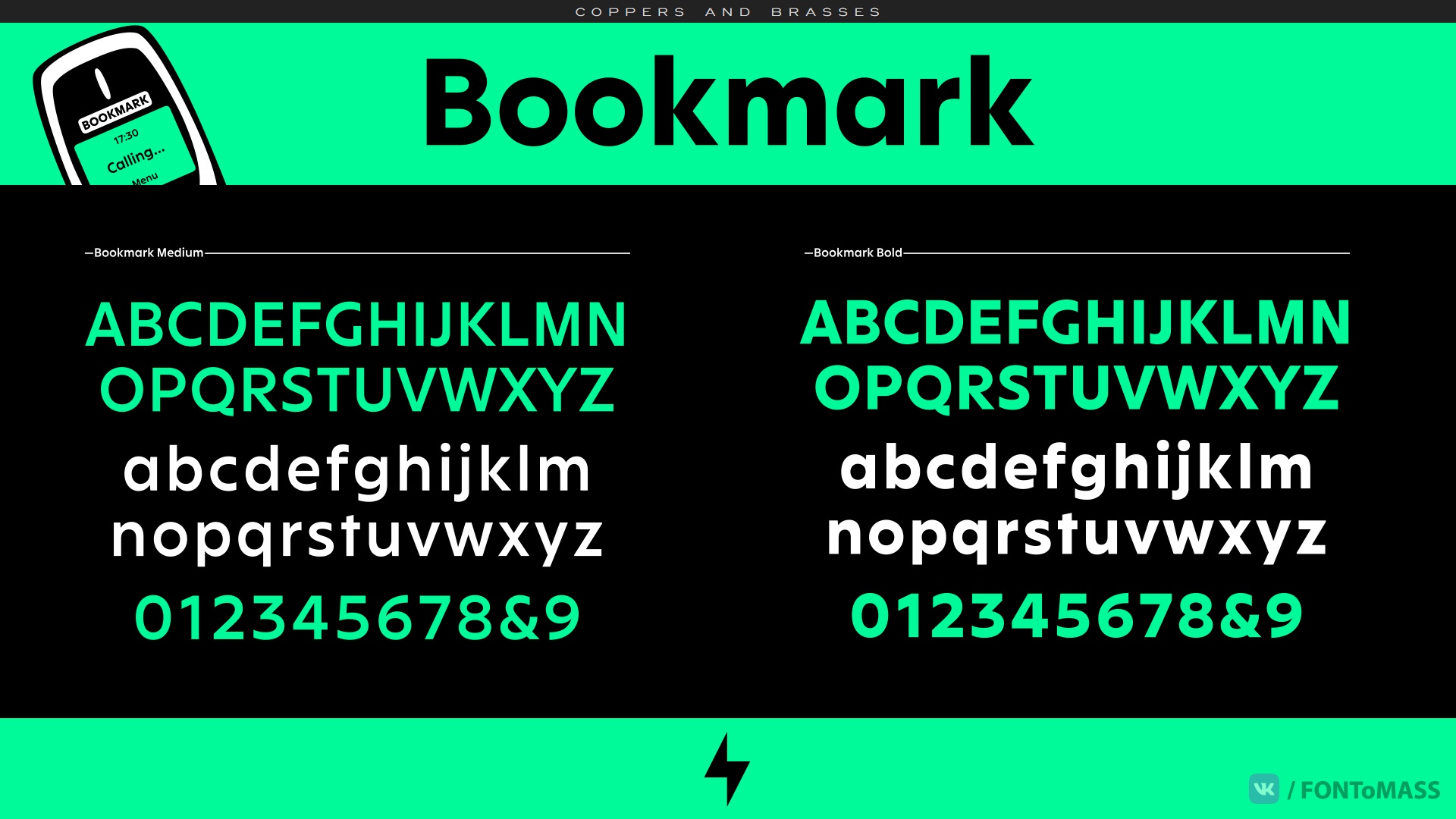
Bookmark Font
Bookmark Font is ideal for literary publications, independent bookstores, reading club materials, library signage systems, educational publishing projects, book review magazines, literary festival promotions, scholarly journal layouts, bookmark designs, and knowledge-focused brand communications.
What makes Bookmark Font so exciting is its exceptional embodiment of literary heritage and intellectual curiosity that captures the timeless pleasure of reading and the profound connection between typography and knowledge through thoughtfully crafted design. This lovingly engineered typeface features readable letterforms with book-inspired proportions and scholarly character variations that immediately convey wisdom, accessibility, and the enduring power of written knowledge. The font's literary construction and knowledge-focused aesthetic create an instant sense of intellectual comfort and reading pleasure, making it ideal for projects that need to communicate scholarly excellence, literary appreciation, and the transformative power of books and reading to audiences seeking meaningful intellectual engagement and genuine literary experiences.
The Bookmark Font family typically includes multiple scholarly weights and literary styles, often featuring light, regular, and bold variations along with thoughtfully crafted italic versions. Reading-focused font collections frequently offer additional literary elements such as book symbols, scholarly ornaments, and knowledge-inspired decorations that enhance the intellectual aesthetic and provide designers with comprehensive tools for creating genuinely educational and literarily sophisticated communications.
The literary nature of Bookmark Font makes it particularly effective for targeting demographics that value reading, learning, and intellectual development in their personal and professional lives. Educational marketers and literary promoters will find this font especially valuable for materials that must establish immediate scholarly credibility and connect with audiences seeking authentic intellectual experiences and meaningful literary engagement.
What distinguishes Bookmark Font is its ability to convey scholarly authority while maintaining the approachability necessary for effective educational communication. This balanced characteristic makes it suitable for both academic applications requiring intellectual rigor and public education contexts where projecting knowledge and maintaining accessibility must work together harmoniously.
Professional designers recognize that Bookmark Font brings invaluable literary credibility to projects across industries including education, publishing, library services, and intellectual development. Its scholarly character and reading appeal make it essential for organizations whose mission centers on promoting literacy, supporting education, and creating meaningful connections between people and the transformative power of books and learning.
The thoughtfully crafted literary authenticity of Bookmark Font ensures consistent educational messaging across all knowledge-focused communication applications while honoring the fundamental importance of reading and intellectual curiosity in human development.